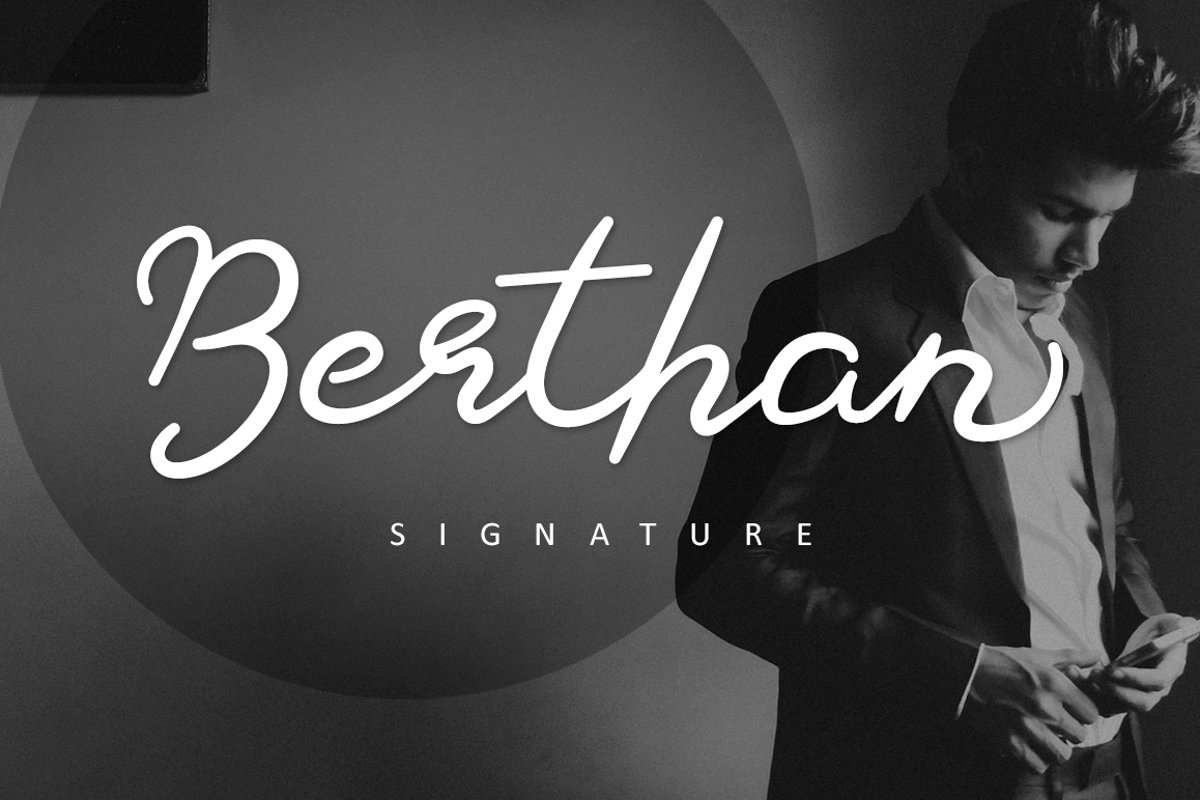
Berthan Signature
Berthan Script is a simplifies elegance into one truly outstanding handwritten font. It maintains its classy calligraphic influences while feeling contemporary and fresh. This versatility will appeal to a wide range of crafty ideas, from letterheads and titles to stationery. Comes with extra swashes and ligature. This typeface is comes in uppercase, lowercase, punctuation's, symbols & numerals, support opentype features in Private Use Area (PUA) Unicode. Also support multilingual.